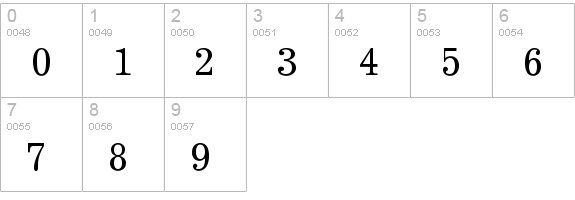
Excelsior Cyrillic Upright Font Details
Excelsior Cyrillic Upright font is a timeless and elegant typeface that exudes sophistication and grace. With its clean lines and classic design, this font is perfect for adding a touch of refinement to any project. The traditional Cyrillic characters are beautifully crafted, making this font a versatile choice for a variety of design applications. What makes Excelsior Cyrillic Upright font even more appealing is that it is available for free download at FontsMarket.com. This means that you can easily access this exquisite font without any cost, making it a valuable addition to your font library. Whether you're working on a branding project, editorial design, or any other creative endeavor, Excelsior Cyrillic Upright font is sure to elevate your work with its timeless charm and elegance. Download now and add a touch of sophistication to your designs!